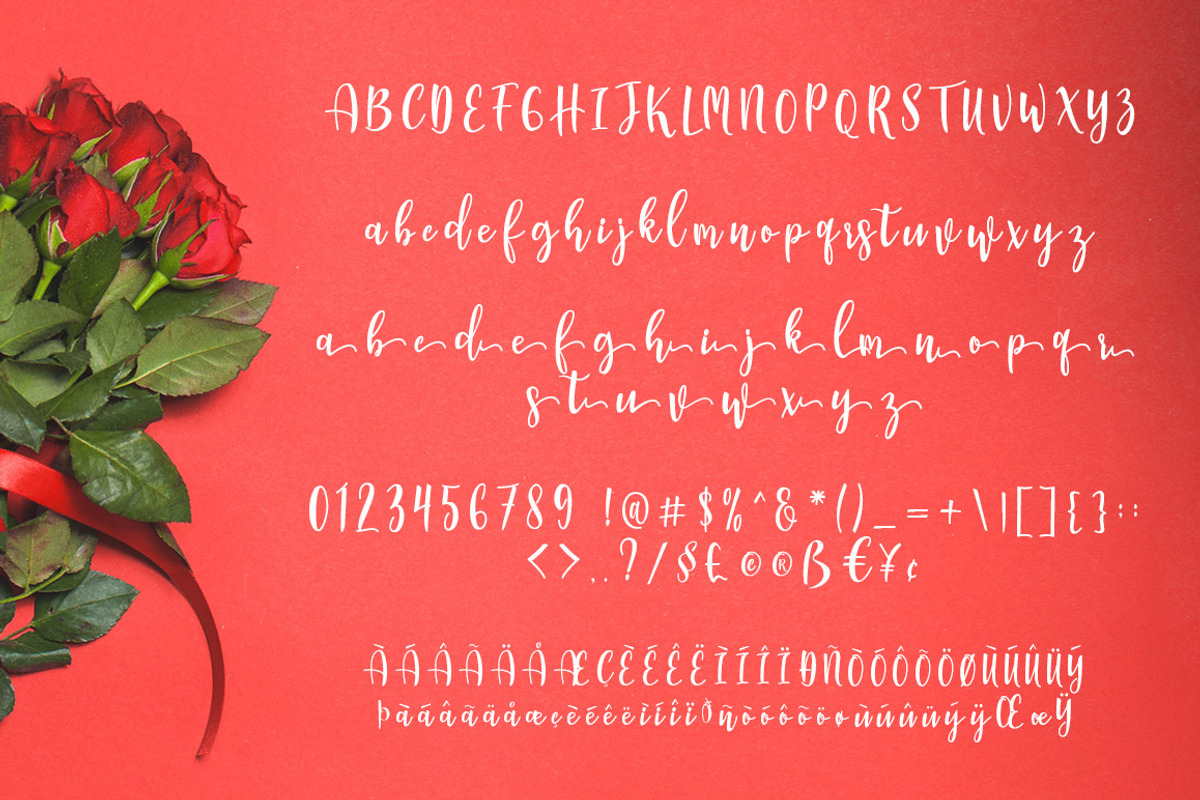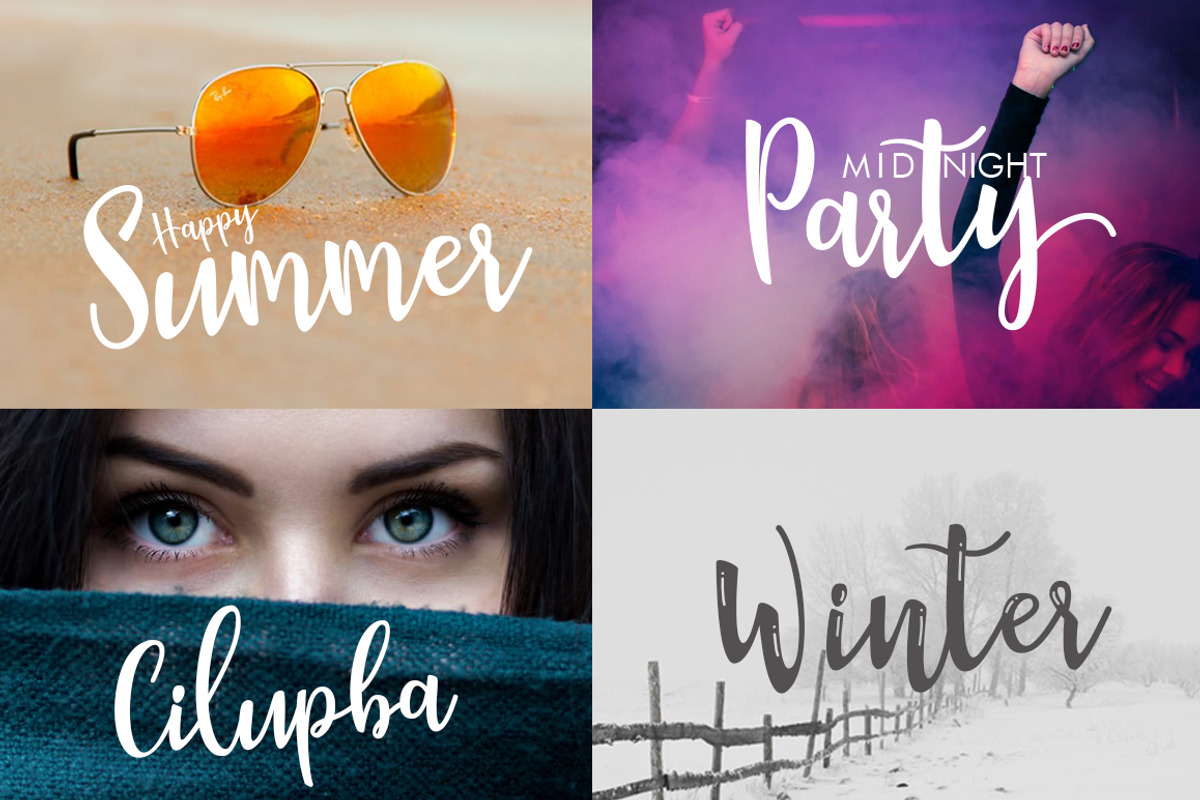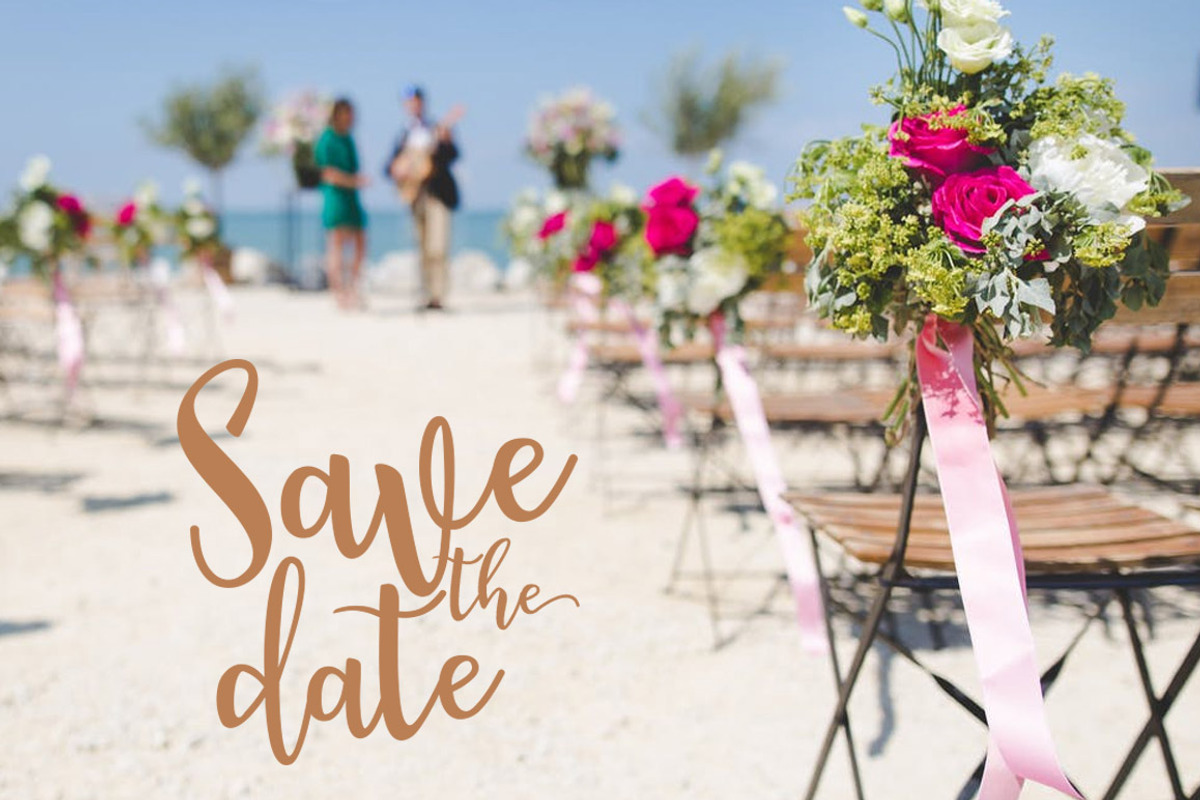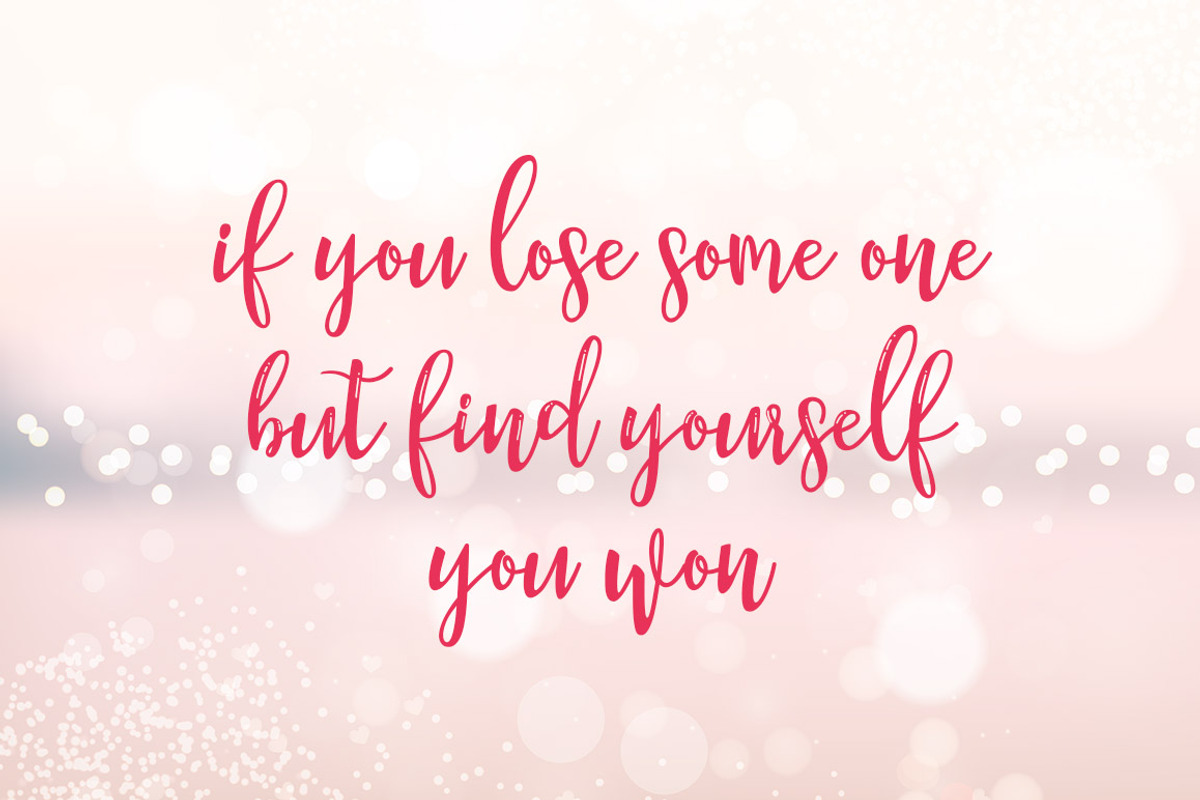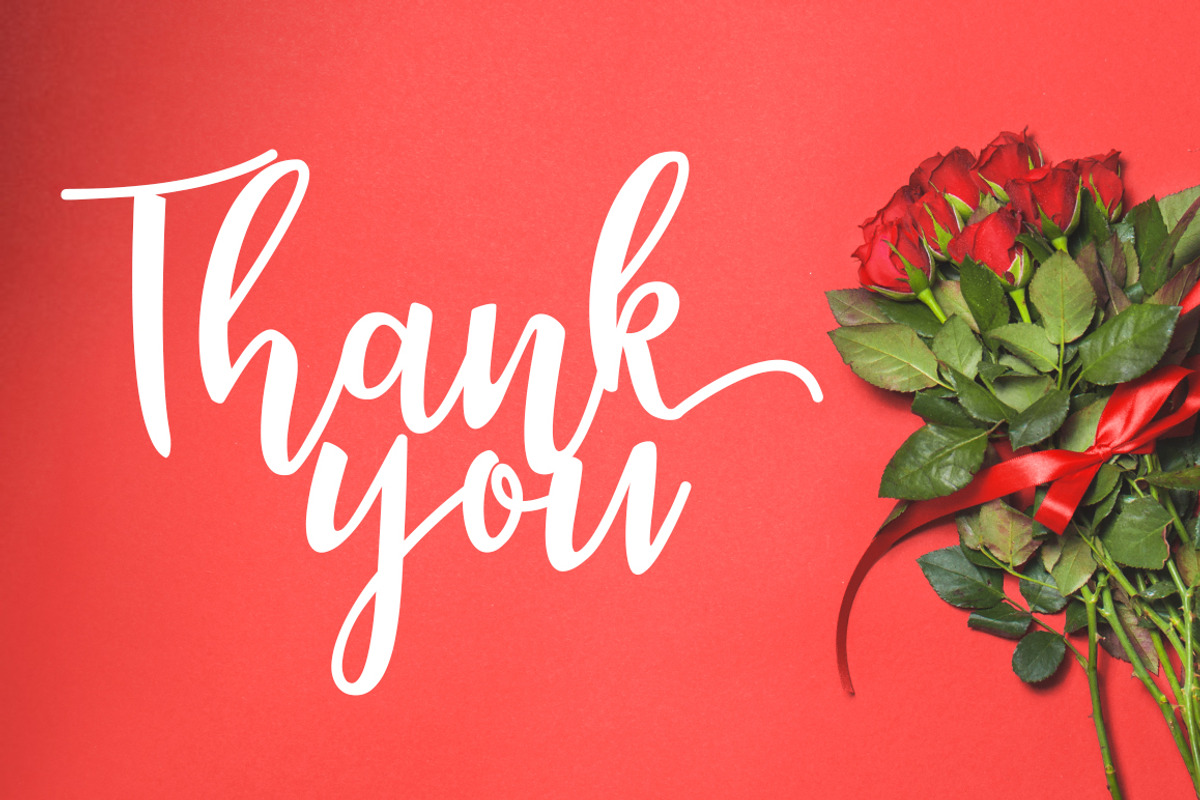
Manda Script Duo Font
Manda Script is a beautiful handmade script font, modern calligraphy & fresh typeface. Manda Script with 4 different style, Manda Script Regular and Italic, Manda Script Shiny and Italic. Manda Script suitable for logo, branding, invitation, greeting card, signature, poster and any design that you create.
Manda Script Features:
- Manda Script Features: Uppercase -Lowercase Numeral Punctuation Support PUA unicode (specially coded fonts) Stylistic Alternates Includes: M
Manda Script Duo Font by khurasan fits naturally into Branding, posters, packaging, typography.